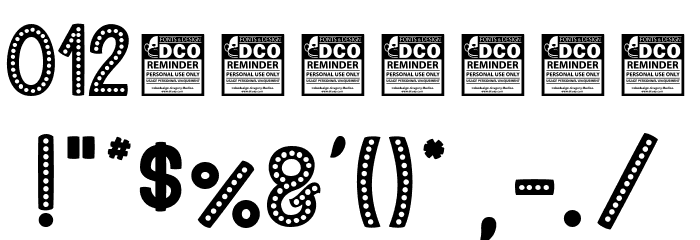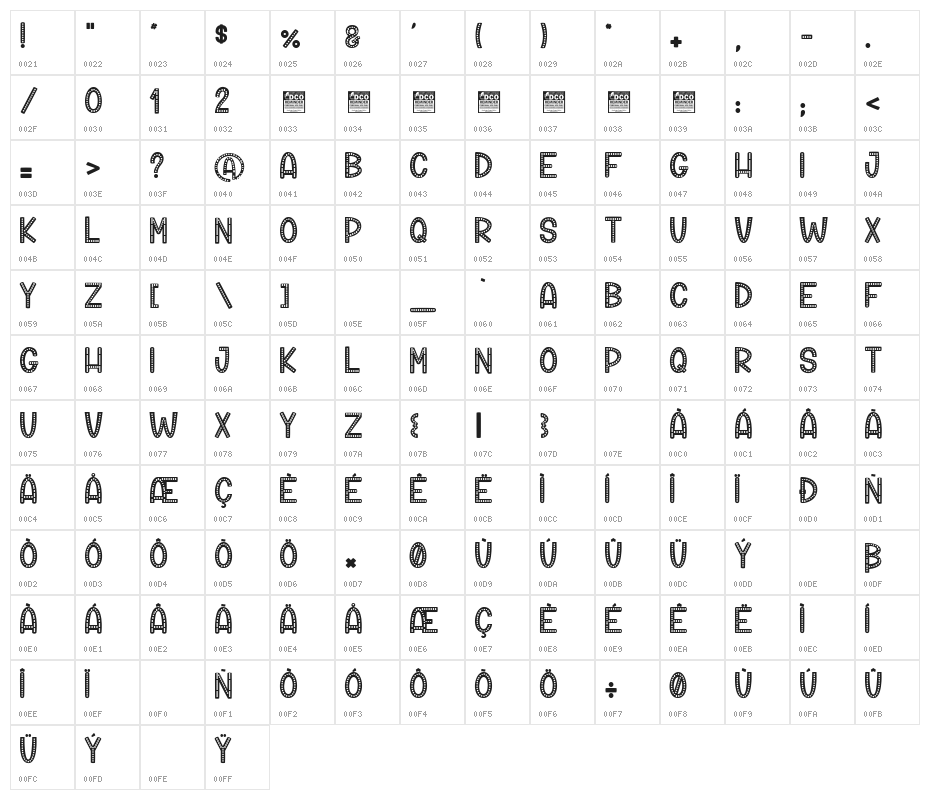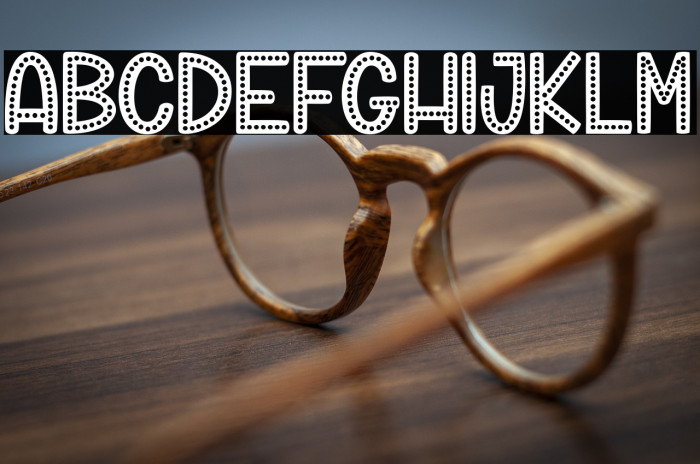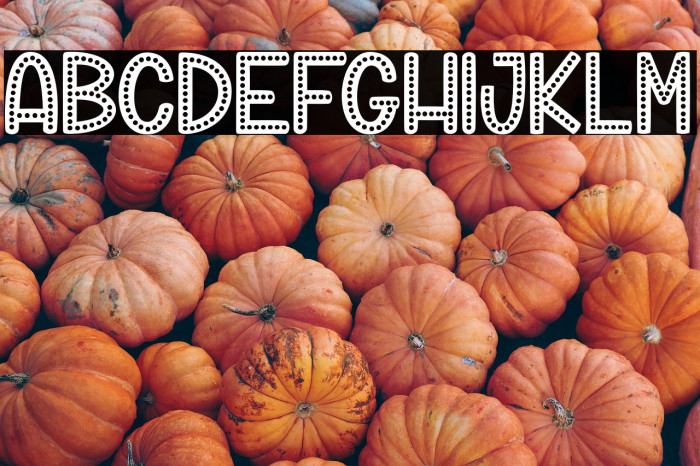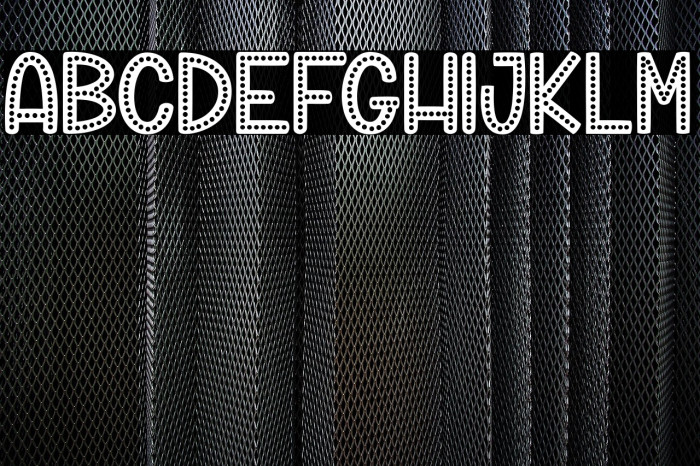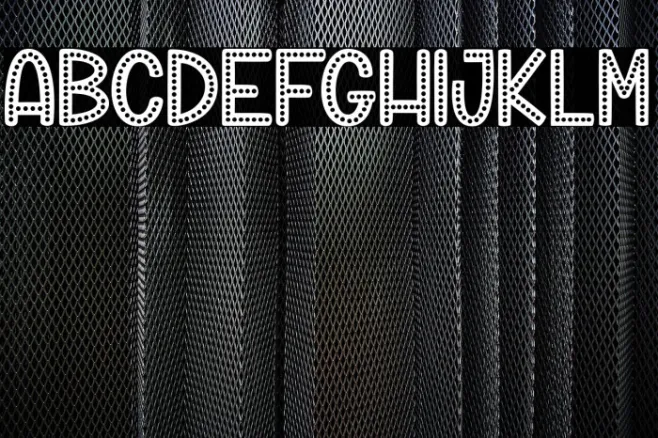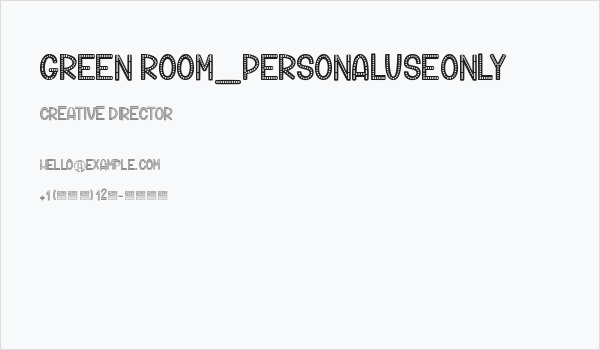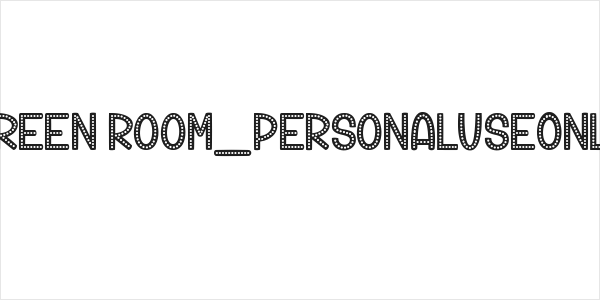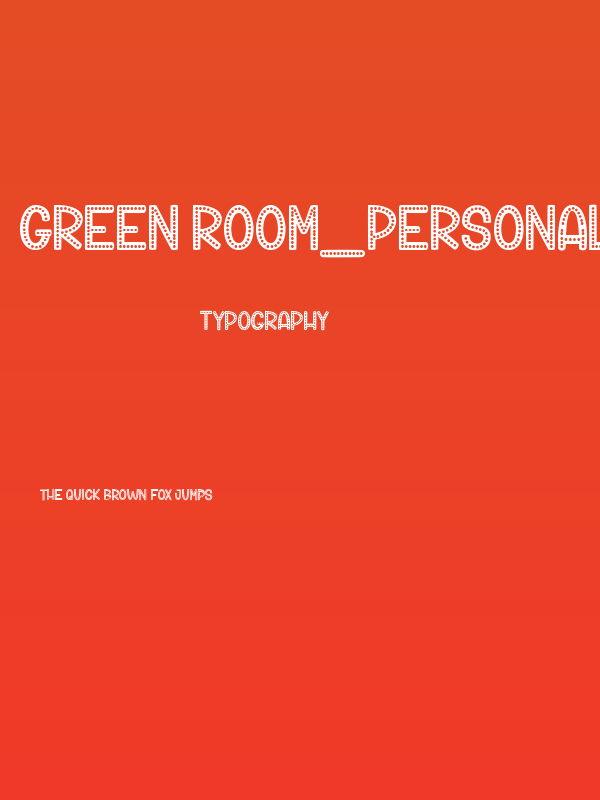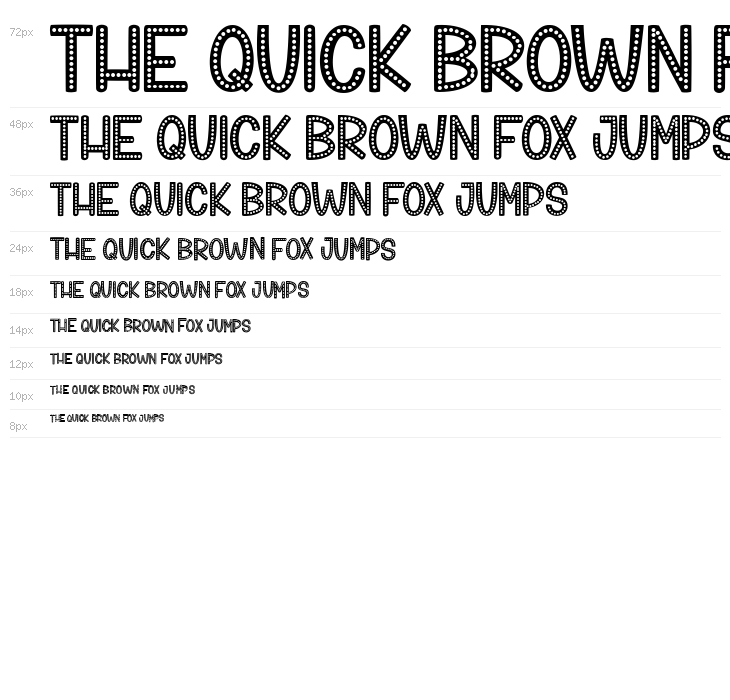
Green Room_PersonalUseOnly Font
Green Room_PersonalUseOnly Description
This font features a bold, decorative style with a unique dotted pattern along the edges of each character, giving it a marquee or carnival-like appearance. The uppercase and lowercase letters maintain a consistent width, with rounded edges that soften the overall look. The numbers and special characters follow the same design, ensuring uniformity across all glyphs. The playful and eye-catching design makes it suitable for attention-grabbing headlines or themed projects. The font's distinct style is both modern and retro, making it versatile for various creative applications.
| Proposed Projects | Ideal for posters, event invitations, signage, and branding that require a playful and eye-catching design. |